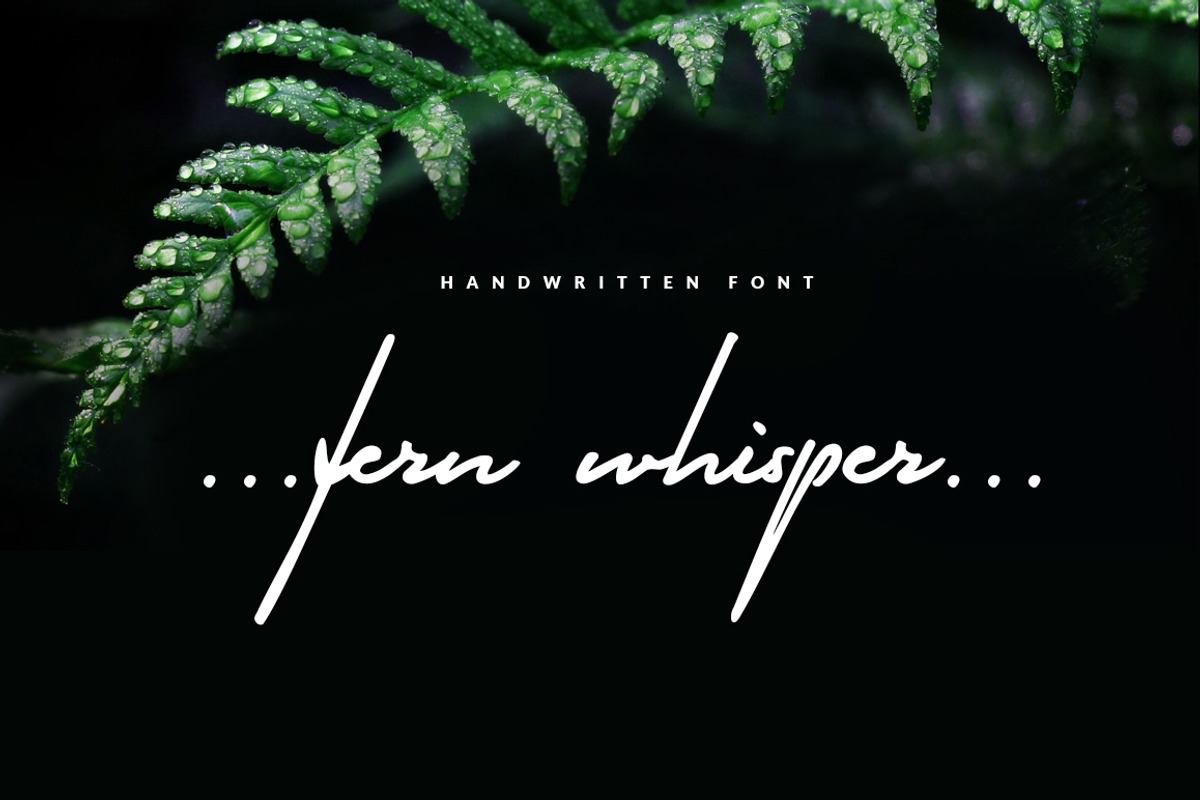
Fern Whisper Font Free Download is a classy signature typeface that exudes elegance and sophistication. With its fluid, hand-drawn strokes and refined character set, Fern Whisper is perfect for high-end branding, fashion logos, wedding invitations, and upscale packaging. This font captures the essence of a personal touch, making your designs feel bespoke and luxurious.
Whether you're a designer working on premium projects or simply want to elevate your creative work, Fern Whisper is the perfect signature-style font to add to your toolkit. Fern Whisper Font Free Download allows you to experience the beauty and finesse of this font before making a commercial investment. Try it today and see how this graceful script can transform your visual storytelling into something truly memorable.